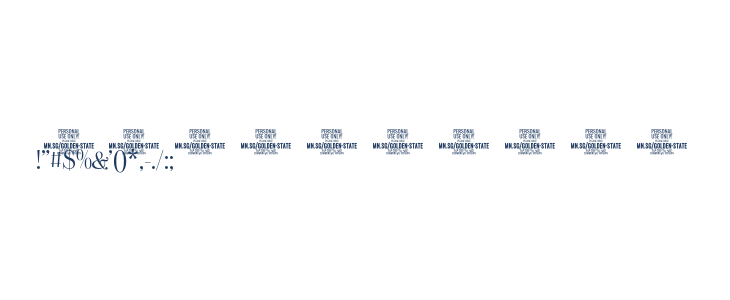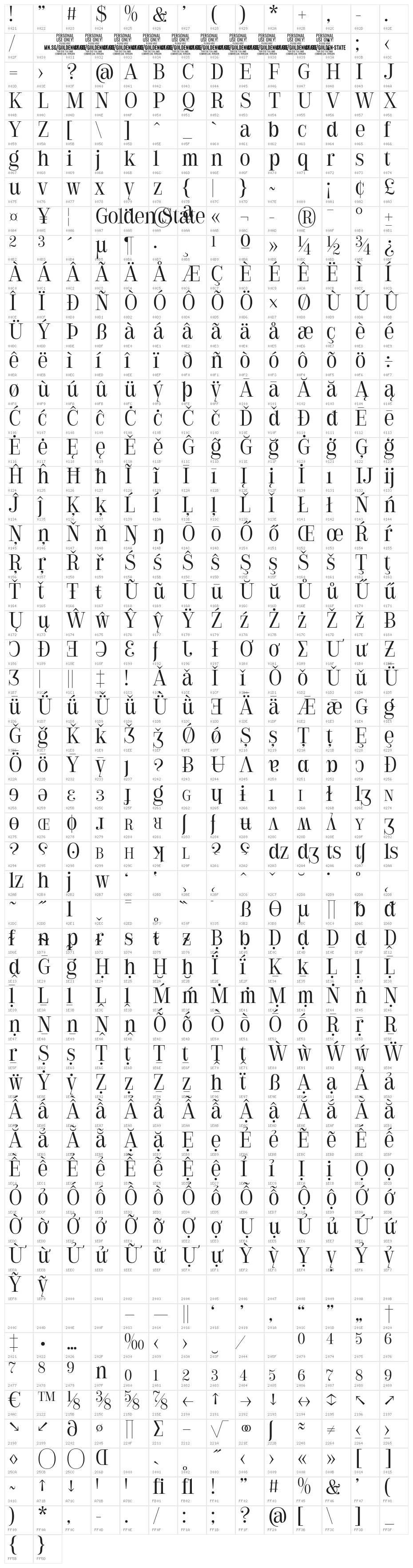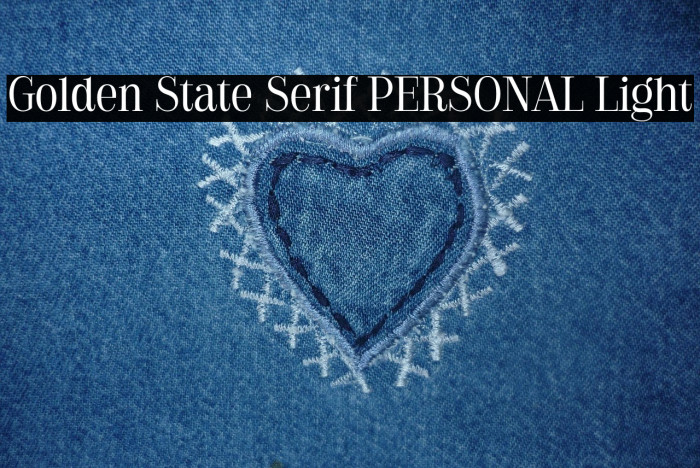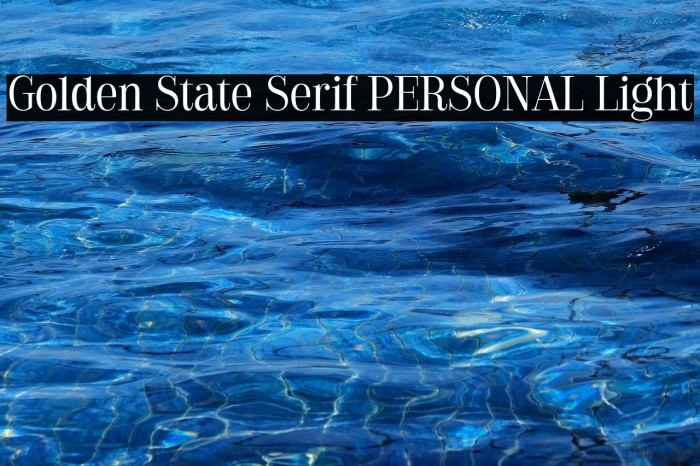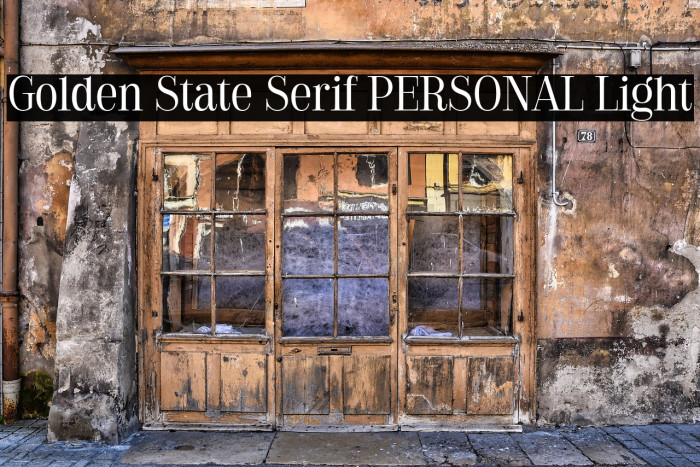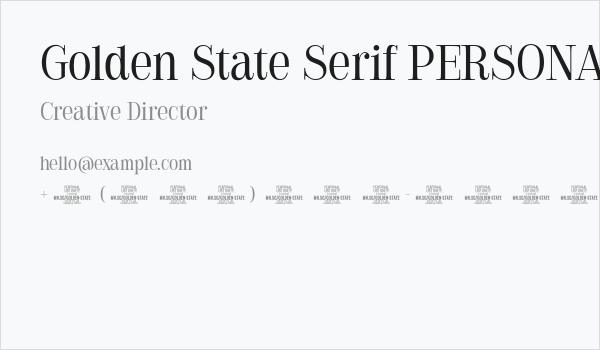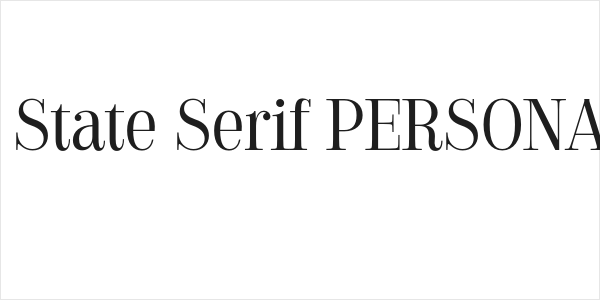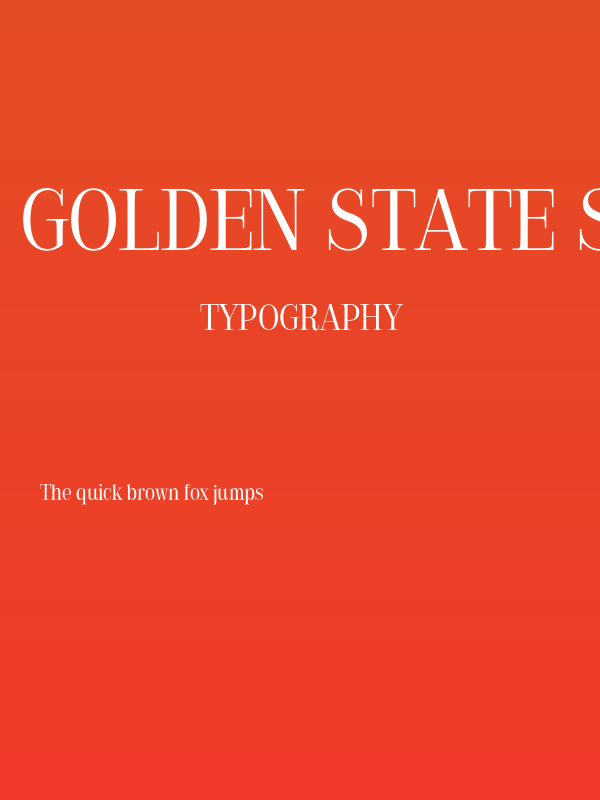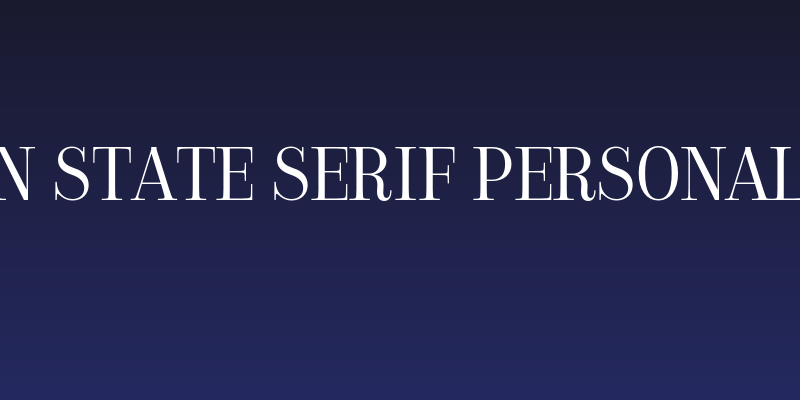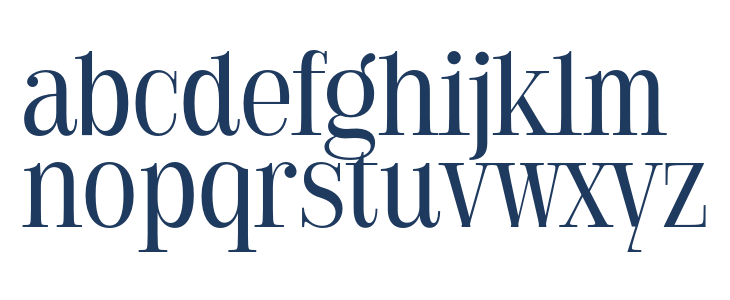
Golden State Serif PERSONAL Light Font
Golden State Serif PERSONAL Light Description
This font features a classic serif style with elegant, elongated serifs that give it a sophisticated and timeless appearance. The uppercase letters are tall and commanding, while the lowercase letters maintain a balanced and harmonious flow. The overall design is clean and legible, making it suitable for both print and digital media. The numerals are distinct and well-proportioned, ensuring clarity in numerical data presentation. Special characters are thoughtfully designed to match the overall aesthetic, providing a cohesive look across all text elements. This font is ideal for projects that require a touch of elegance and tradition.